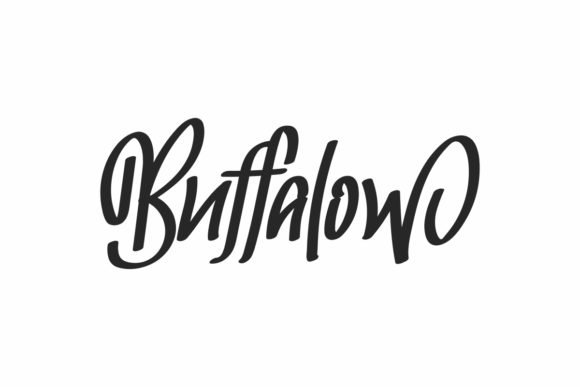
Discover the Timeless Charm of Buffalow Font
Do you remember that moment when you stumbled upon the perfect font for a project, and it all just clicked? For designers, this feeling is priceless, and it’s what drives us to create something truly special. That moment happened for many when they discovered the Buffalow Font – a distinct and elegant handwritten font that exudes warmth and sophistication.
Buffalow Font is more than just a font; it’s a tool that helps designers bring their creative vision to life. Whether you’re crafting sweet wedding invitations, beautiful stationery art, or eye-catching social media posts, this versatile font is sure to elevate your designs and leave a lasting impression. Its unique style and versatility make it a valuable asset for designers looking to add a personal touch to their work.
Buffalow Font Key Features
- Font Family: Buffalow Font is a unique and stylish font, ideal for various design projects. It is available in a single font family.
- Unique Characteristics: Buffalow Font features a distinctive and elegant design, with a mix of modern and classic elements, making it suitable for various design projects, including logos, headings, and body text.
Buffalow Font Review
As a designer, I recently had the chance to work with the Buffalow Font, and here’s my honest review.
- The Buffalow Font has a unique, hand-drawn feel that adds a touch of personality to any design.
- The font is highly customizable, with a range of weights and styles to choose from.
- It’s perfect for creating eye-catching headings and titles that grab the user’s attention.
- The font is also highly legible, even at smaller font sizes.
- The Buffalow Font can be quite busy, with a lot of fine details that may not print well at small sizes.
- It may not be the best choice for body text, as it can be tiring to read in large blocks.
- The font may not be suitable for certain design styles, such as minimalist or modern designs.
The Buffalow Font is a great addition to any designer’s toolkit, but it’s essential to use it thoughtfully and in the right context. When used correctly, it can add a unique touch to your designs and help you stand out from the crowd. However, it’s not a one-size-fits-all solution, and you should carefully consider its limitations before choosing it for your project.
The Buffalow font is ideal for creating eye-catching headlines, titles, and logos. To get the most out of it, use it in conjunction with bold and italic formatting to create emphasis and visual interest.
The Buffalow font is commonly used for:
- Restaurant and food branding
- Outdoor and adventure-themed designs
- Handwritten-style font for a personal touch
Alternatives to Buffalow Font for Designers
Great Vibes Font is a modern, elegant script font that is perfect for creating a sophisticated and stylish look. It is ideal for use in headings, titles, and other display typography. Great Vibes Font has a similar feel to Buffalow Font, but with a more refined and polished look.
Comparison to Buffalow Font: Great Vibes Font is more formal and elegant, while Buffalow Font has a more casual and playful feel.
Alex Brush Font is a beautiful, handwritten font that is perfect for creating a personal and touchable look. It is ideal for use in invitations, greeting cards, and other creative projects. Alex Brush Font has a similar organic feel to Buffalow Font, but with a more delicate and refined look.
Comparison to Buffalow Font: Alex Brush Font is more delicate and refined, while Buffalow Font is more bold and playful.